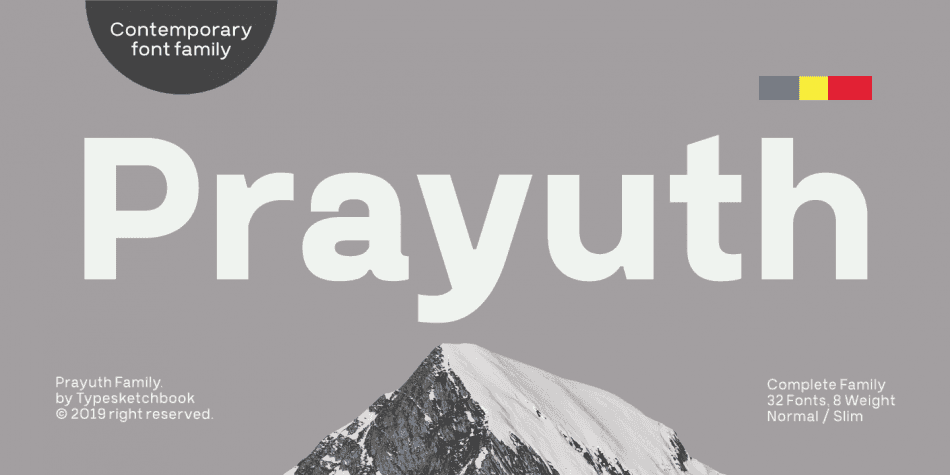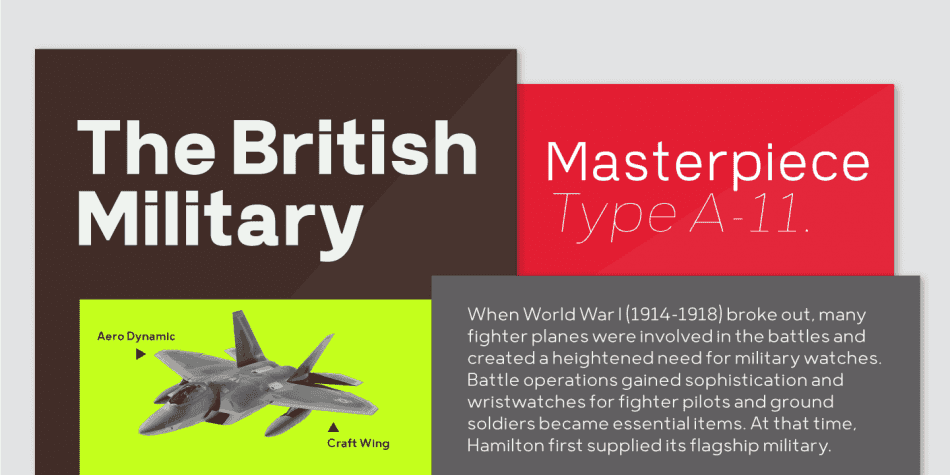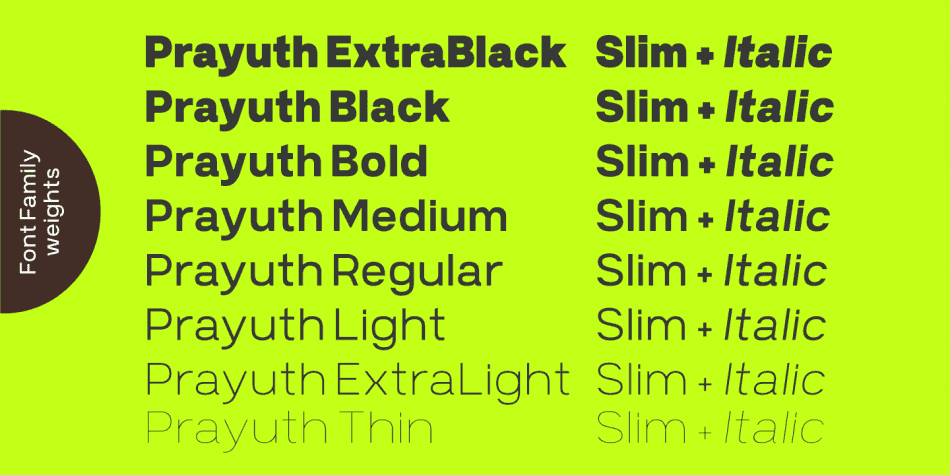
Prayuth Font Family is an impressive modern sans serif typeface featuring 32 fonts in eight weights – regular and slim options – ideal for headlines and small text. Available both as desktop font and webfont font, Prayuth font family can also be used in various languages as a desktop font or webfont font.